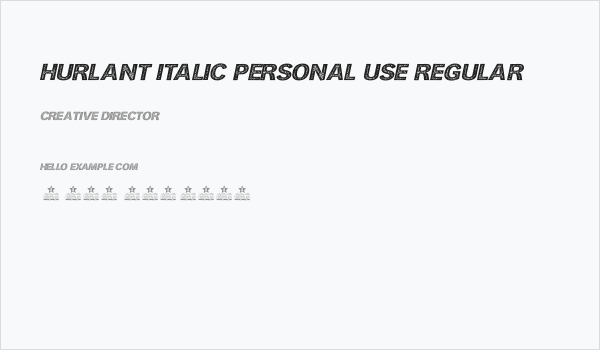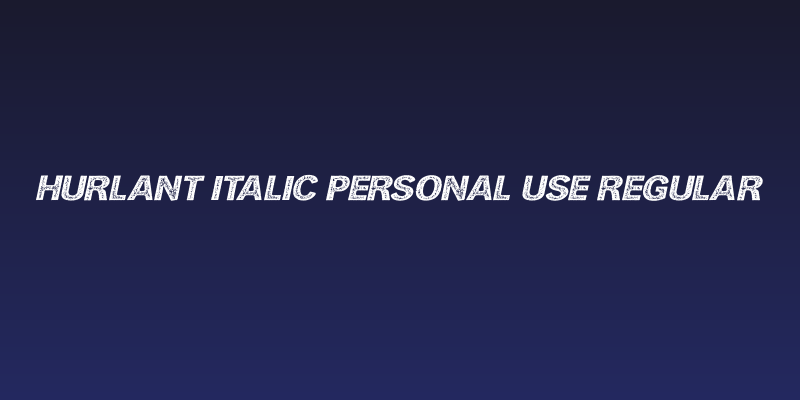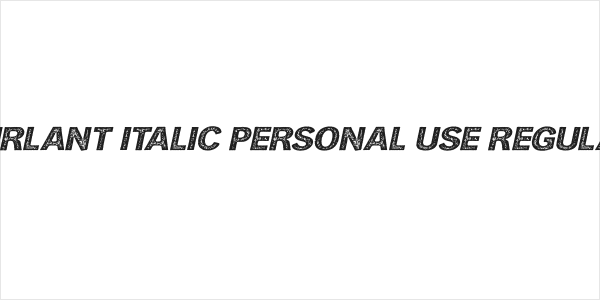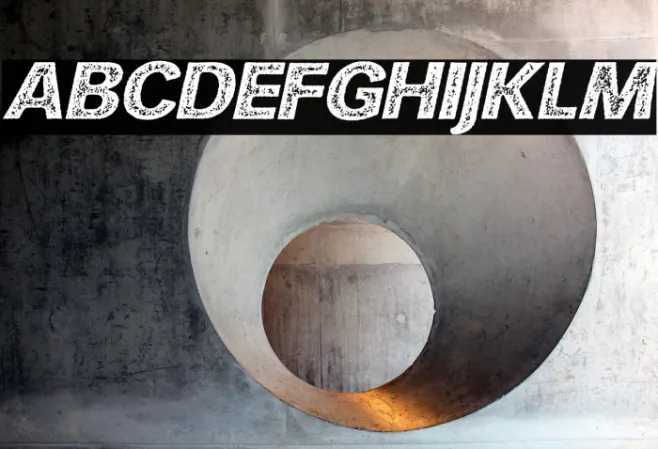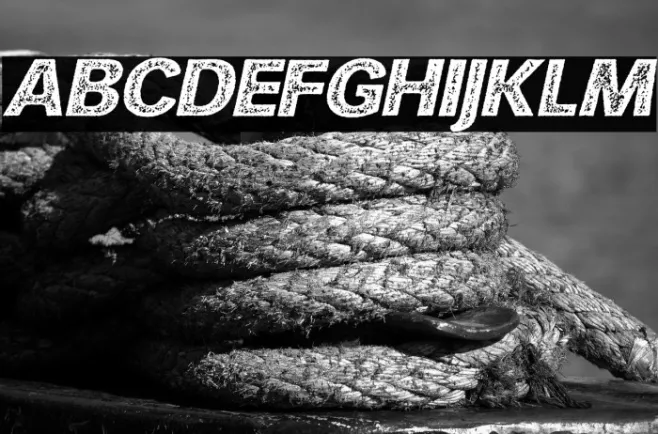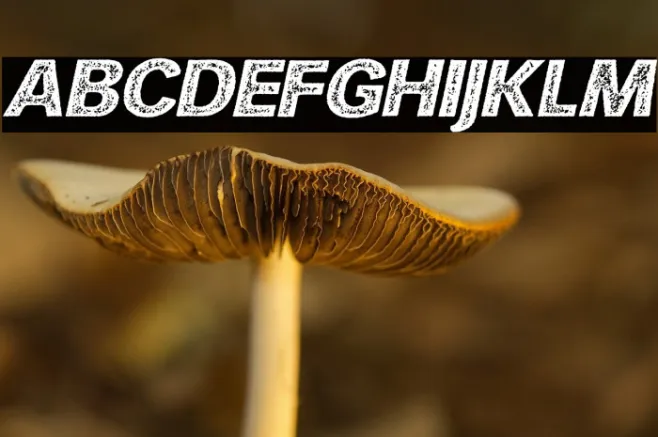
HURLANT ITALIC PERSONAL USE Regular Font
HURLANT ITALIC PERSONAL USE Regular Description
This font features a bold and italicized style with a distressed texture, giving it a rugged and dynamic appearance. The uppercase letters are prominently displayed, showcasing a strong presence with a slightly slanted orientation. The texture adds a vintage and worn-out feel, making it suitable for designs that require a gritty or industrial look. The characters are well-defined, with consistent spacing that maintains readability despite the textured effect. This font is ideal for projects that aim to convey a sense of boldness and edginess.
| Overall Style | Vintage, Industrial |
| Proposed Projects | Ideal for posters, album covers, branding for edgy products, or any design requiring a vintage, industrial feel. |